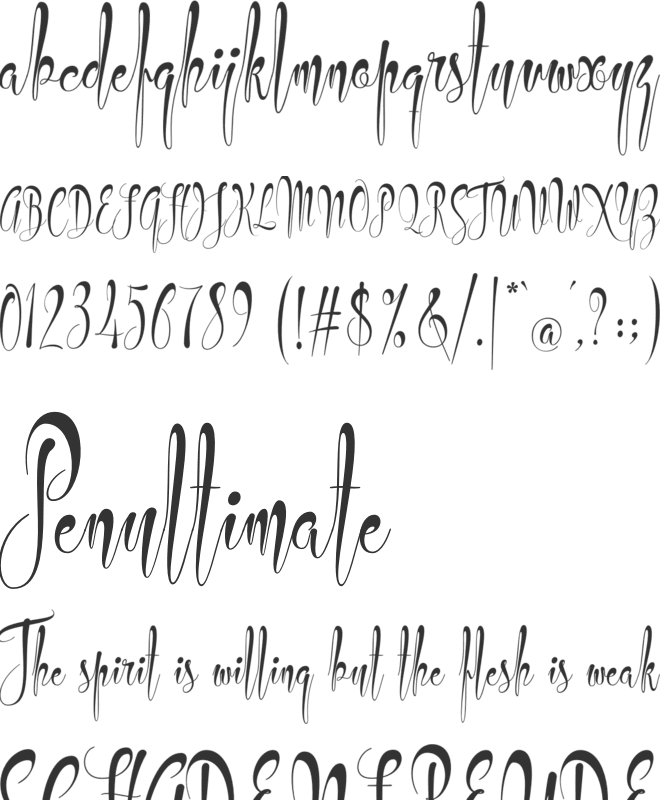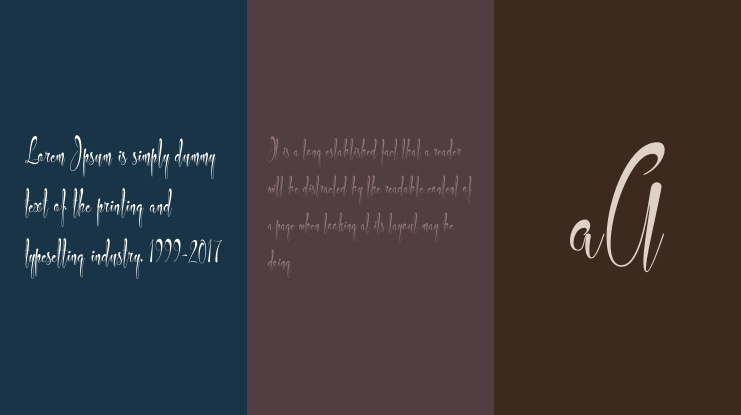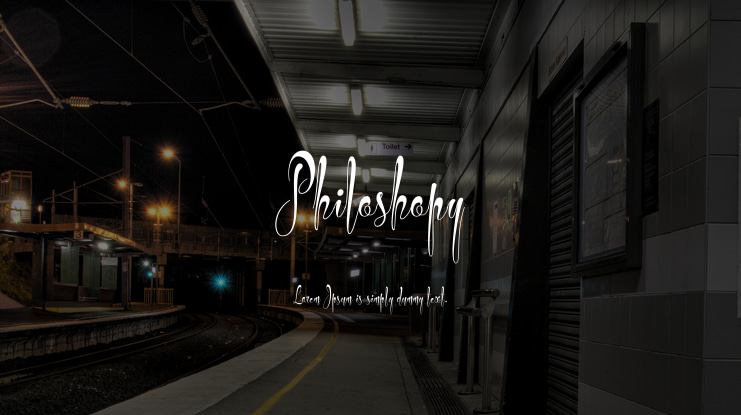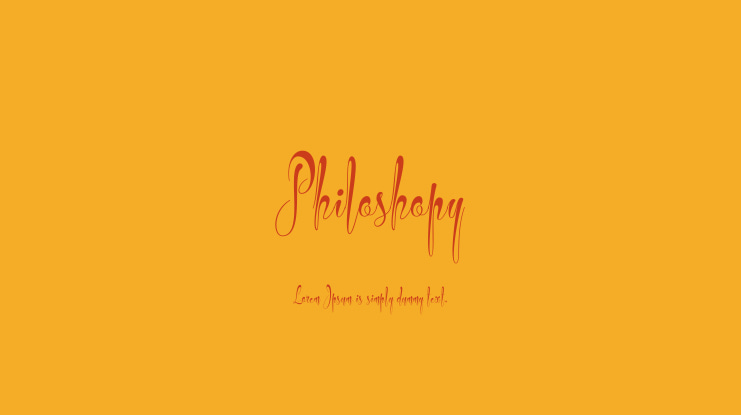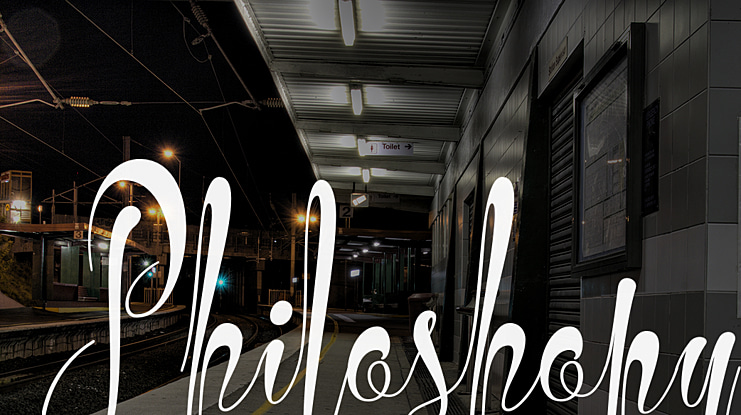
Philoshopy Font Family
Say Hello to Philoshopy Script, a new cool modern calligraphy script, with new innovation system for Uppercase Portable Swashes! So we can create balance swash style. It also nice just with basic character. **Bonus italic/slanted version** for your convenience.